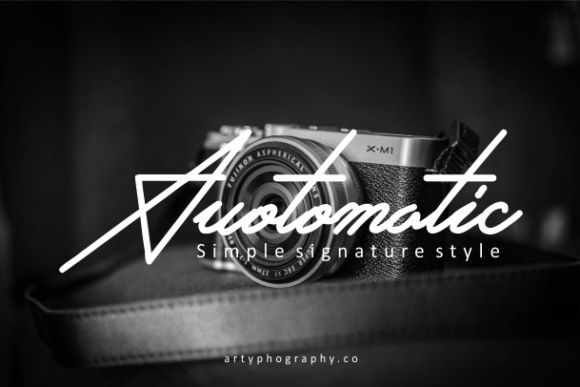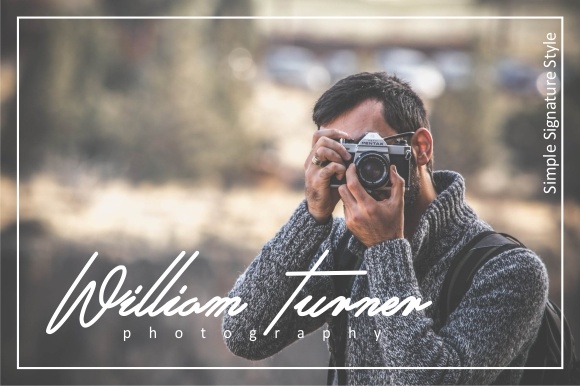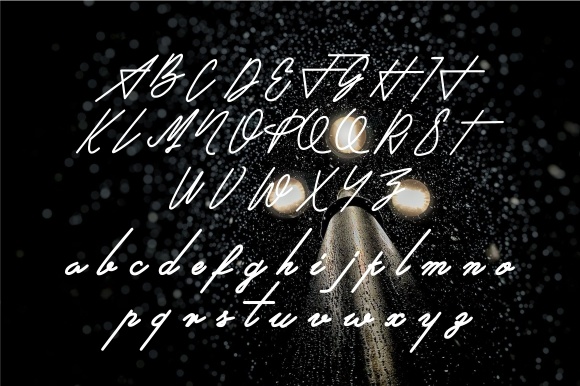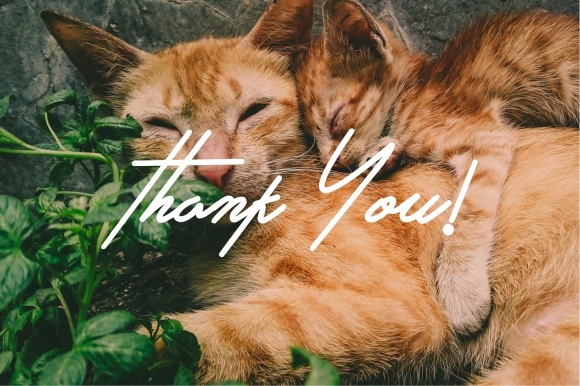
About Auotomatic Font
Auotomatic Signature is a modern and simple font which will make your text looks beautiful. With a modern signature script this font will be perfect for many different projects such as: photography, watermark, quotes, blog headers, posters, weddings, brandings, logos, fashion, apparel, letters, invitations, stationery, etc.